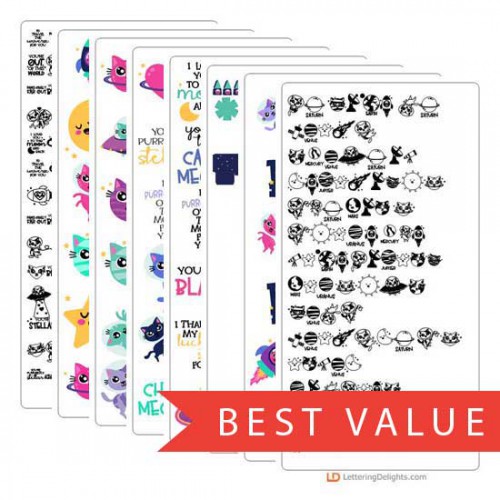
Space Cats - Big Bundle
This adorable collection features cute cats and puns, love themes and space exploration. Perfect for all space lovers and Valentines! Use this doodlebat to create fun crafts, gifts, decor, cards, parties, scrap book pages, planner stickers and more! Includes everything in both the graphic and cut bundles.